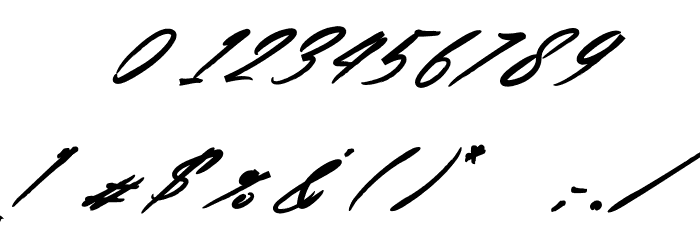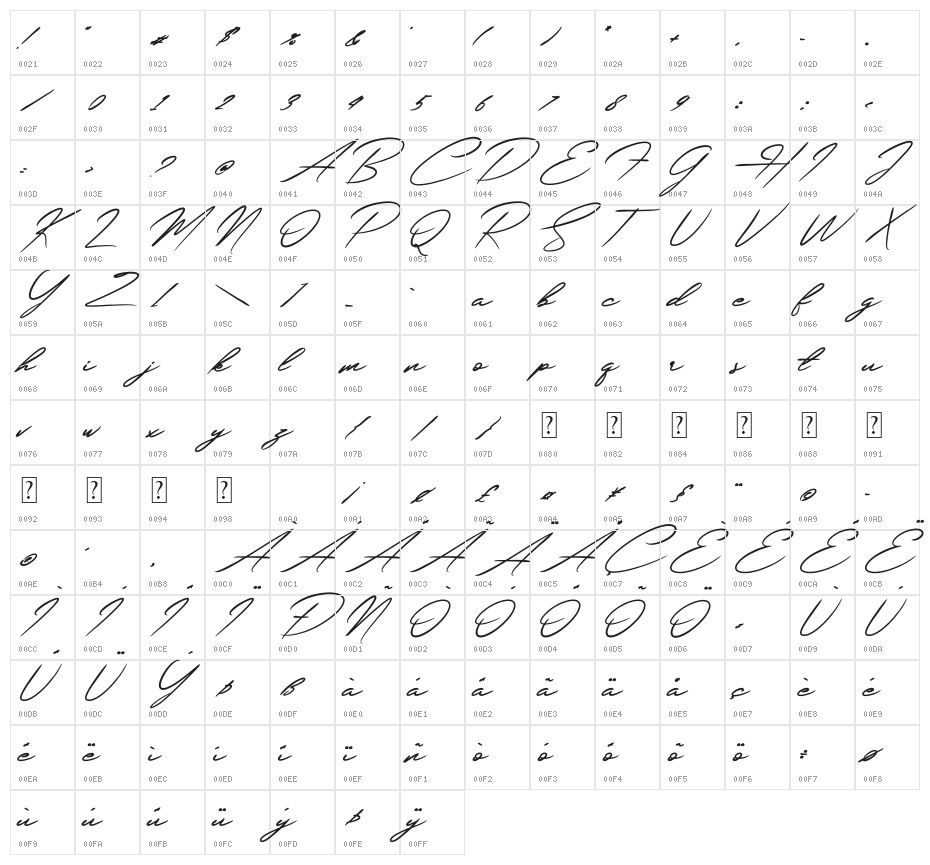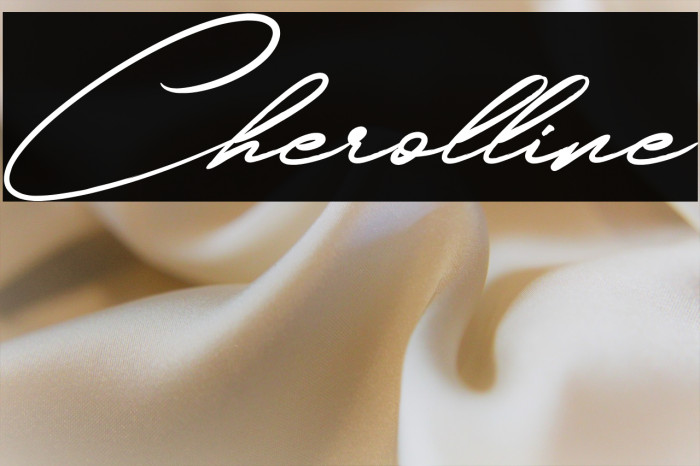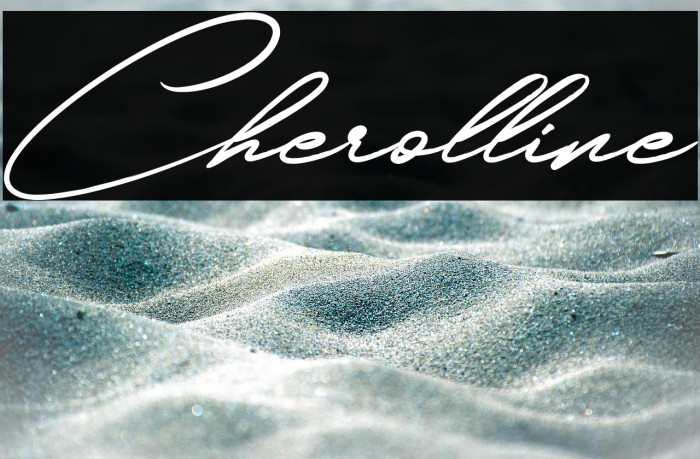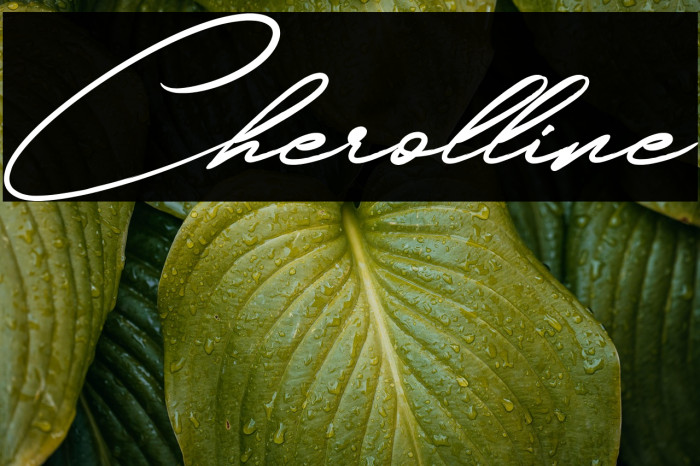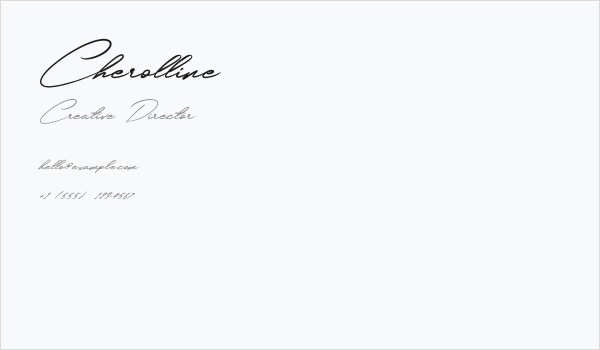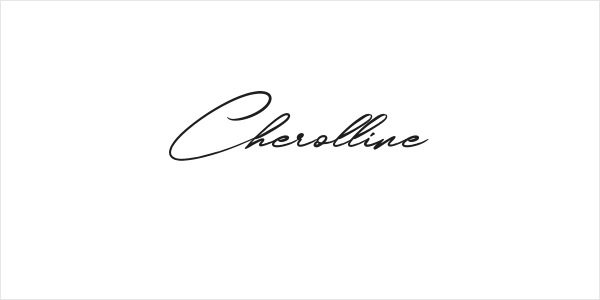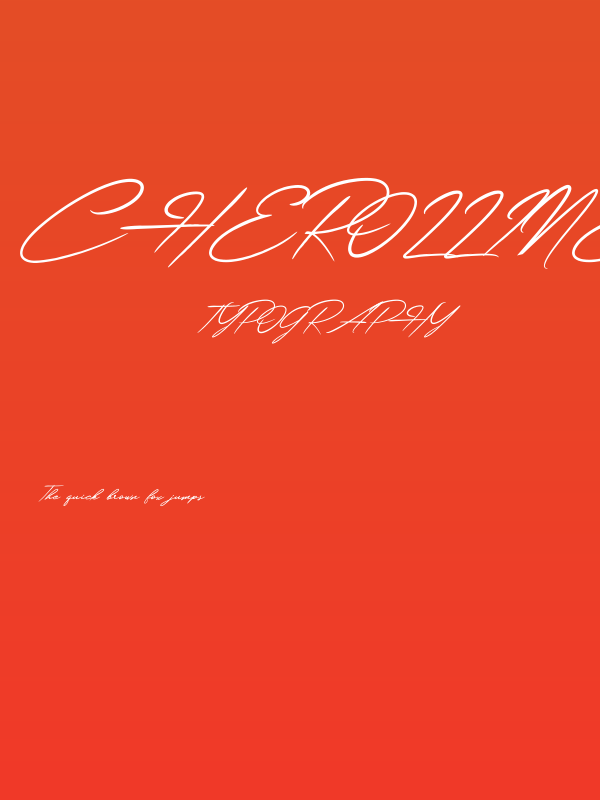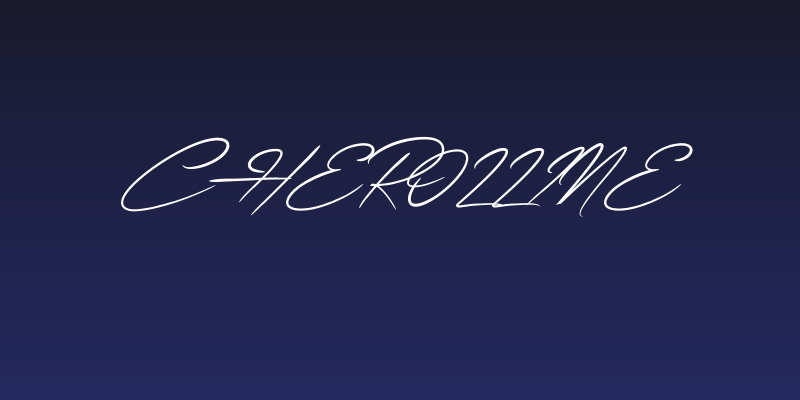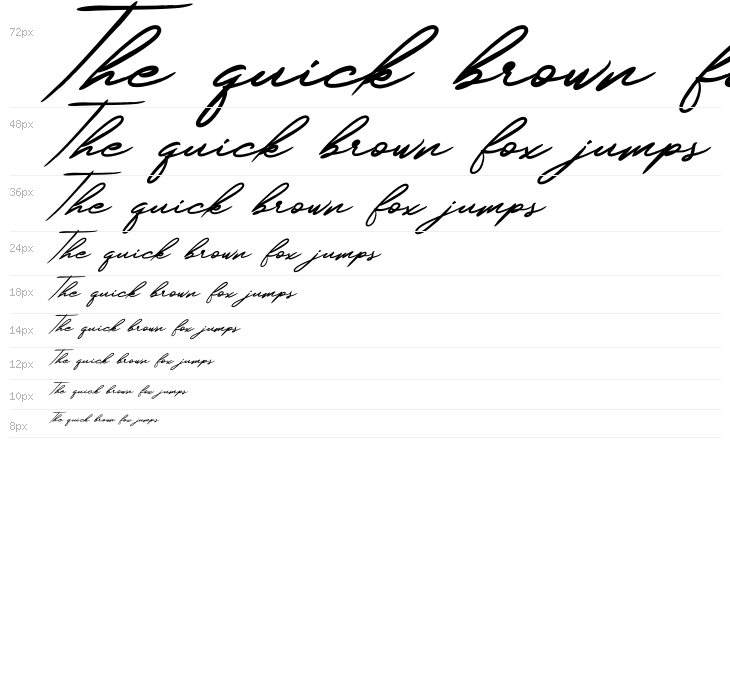
Cherolline Font
Cherolline Description
This font exhibits a fluid, cursive style with elegant, sweeping strokes that mimic the natural flow of handwriting. The uppercase letters are characterized by their elongated and graceful lines, while the lowercase letters maintain a consistent slant, enhancing the script's overall cohesion. The numerals and special characters are crafted with the same attention to detail, ensuring a harmonious appearance throughout. The font's design is both sophisticated and approachable, making it suitable for a variety of applications where a personal touch is desired.
| Proposed Projects | Ideal for wedding invitations, personal branding, greeting cards, and elegant packaging. |